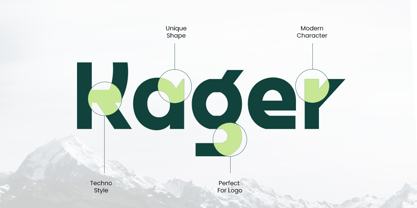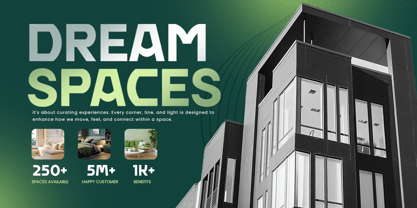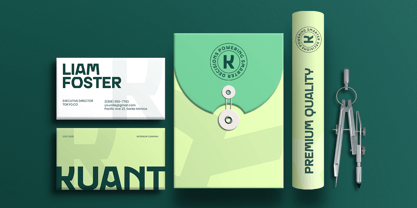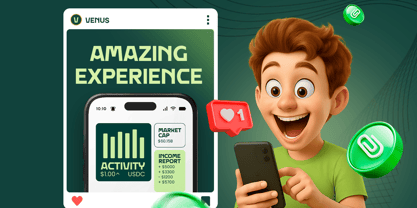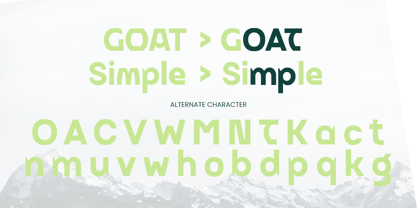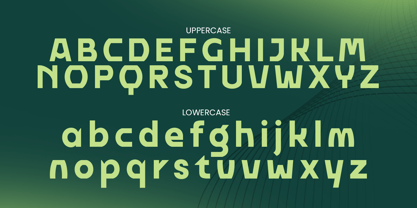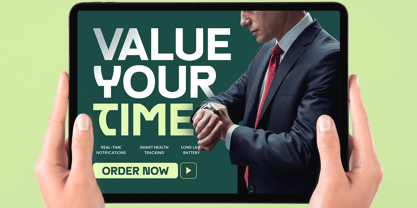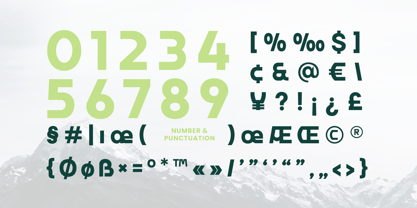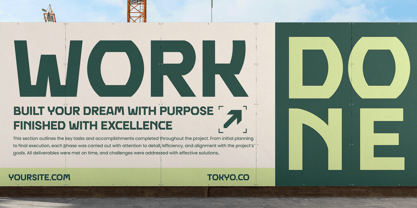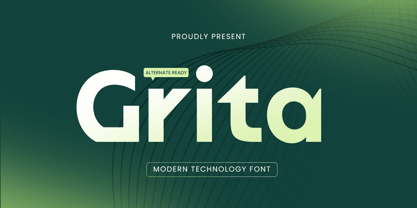
Grita is a modern technology font designed for innovation-driven brands and digital-first design systems. Its clean structure, futuristic vibe, and smart spacing make it ideal for tech startups, app interfaces, product packaging, and UI/UX headlines.
Grita strikes a perfect balance between modern aesthetics and professional readability. Whether you're building a corporate identity or a new SaaS platform, this font delivers a sleek and trustworthy impression.
With its streamlined characters and versatile style, Grita empowers your brand to speak the language of technology and progress.
Grita – Modern Technology Font Features
Sleek modern design with a tech-forward feel
Ideal for digital platforms, corporate branding, and UI
Punctuation, numbers, and symbols included
Uppercase and lowercase letters
OpenType features for advanced customization
Communicate clarity and forward-thinking with Grita — your go-to font for modern tech branding.
Design for tomorrow. Power it with Grita. ⚙️�